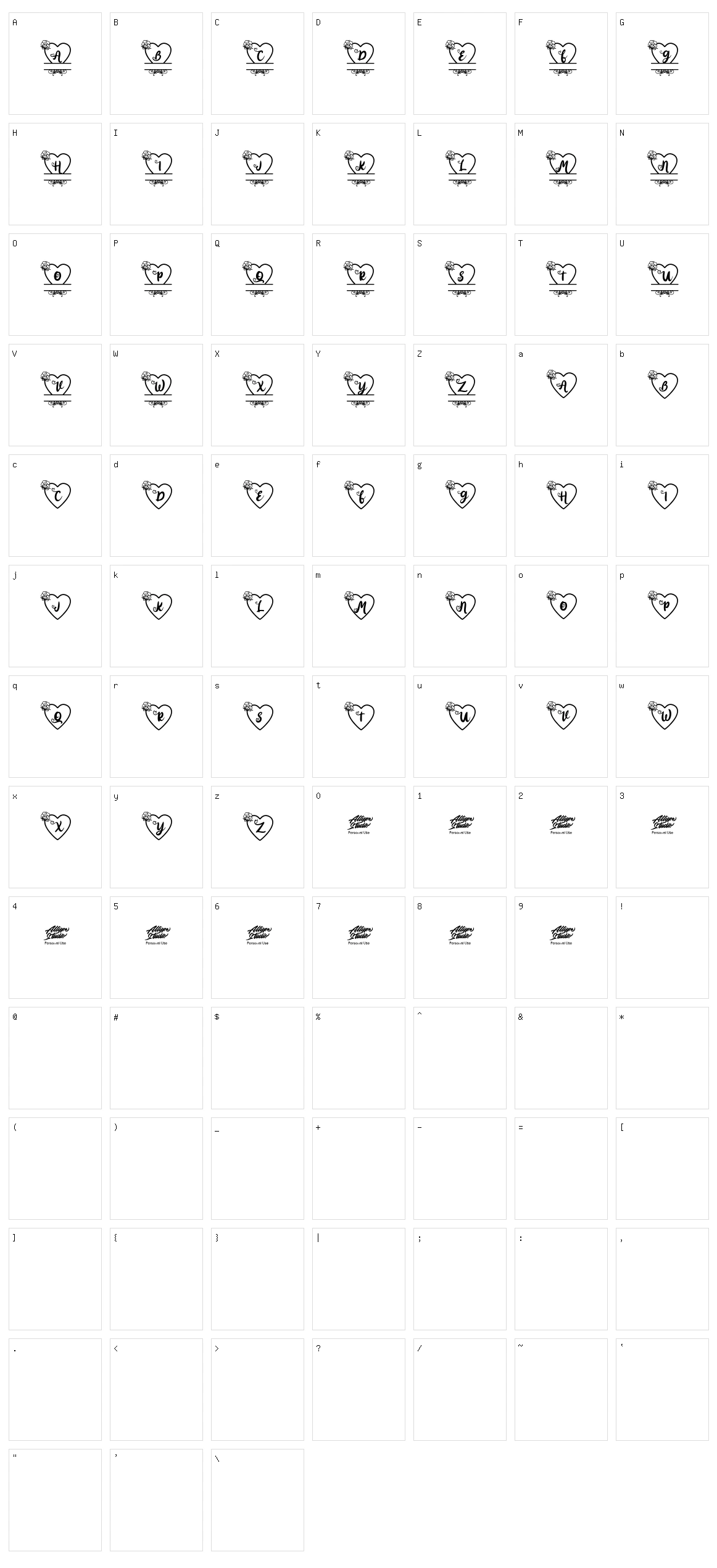
The free font Pinky Monogram is carefully designed by Attype Studio, showcasing a thoughtful balance of creativity and usability and falls under the Initials font style. When you download the ZIP file, it contains only 941.8 KB of font files, making it lightweight and quick to download. Please review the license details below to understand permitted usage and distribution rights. If license information is not available, we recommend using this font for personal projects only or contacting the author directly for commercial usage permissions.